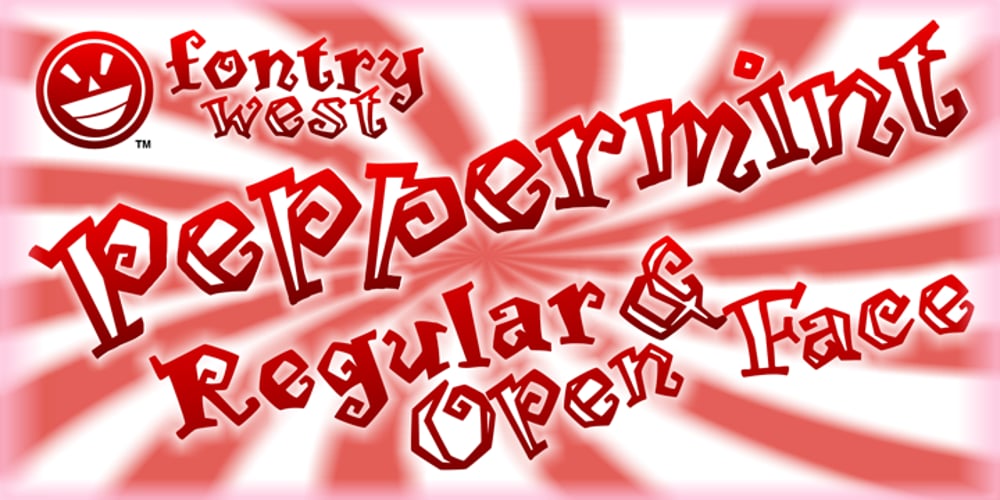
WILD2 Peppermint Font Family was designed by James L. Stirling and published by Fontry West. WILD2 Peppermint contains 3 styles and family package options. Peppermint is wild and fun, and sweet like candy. It was designed for sororities and cheer squads. Peppermint shouts, giggles, turns, and bounces. But, it still gets the message across loud. Break it up – get the characters off the baseline. Twist them. Turn them. Whatever, but have fun.